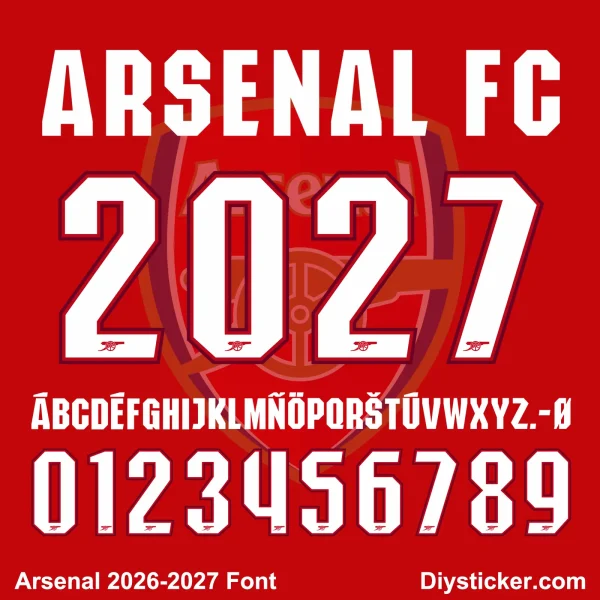
Download the complete Arsenal FC 2026-2027 style kit font for your design projects. This premium typography package reproduces the official jersey numbers and lettering look for the 2026/27 season, complete with the iconic inner club crest detailing. Perfect for creating custom shirts, stickers, mockups, and sports graphics.
Bring your sports designs to life with the high-quality Arsenal 2026-2027 font download. This custom-engineered typography pack perfectly replicates the sharp, modern geometric aesthetic featured on the Gunners’ kits for the 2026/27 football season. Whether you are creating personalized jersey prints, custom fan gear, or high-fidelity mockups in CorelDRAW or Adobe Illustrator, this complete vector and desktop font package has everything you need.
This font kit is fully optimized for professional-grade graphic production and apparel printing. It features complete character mapping to handle international player names effortlessly:
Complete A-Z Alphabet: Includes essential special characters and diacritics (such as Ā, É, Ñ, Ö, Š, Ū, Ø) for accurate player name replication.
0-9 Numbers: Sharp, geometric block numbers embedded with the mini Arsenal cannon crest at the base.